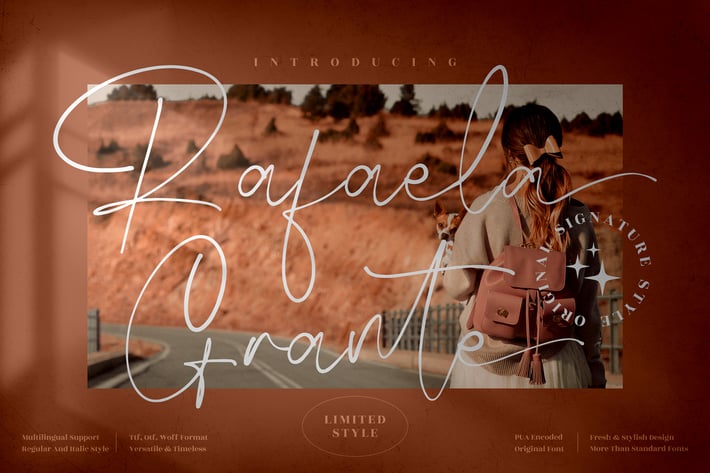
Rafaela Grante Signature Font
Rafaela Grante Signature Font is a sophisticated and stylish handwritten typeface designed to bring elegance and charm to any project. With its smooth strokes, versatile style, and timeless design, this font is ideal for creating unique visuals that exude professionalism and beauty. Perfect for modern branding, social media content, and printed materials, Rafaela Grante will elevate your creative work with a graceful personal touch.
+ Elegant and modern handwritten signature style
+ Versatile for both print and digital design
+ Smooth, flowing strokes with natural handwriting effect
+ Branding & logo design
+ Social media graphics
+ Invitations & greeting cards
+ Posters & editorial layouts
+ Personal and commercial projects
Bring timeless elegance to your designs with Rafaela Grante – the perfect signature font for modern creatives.